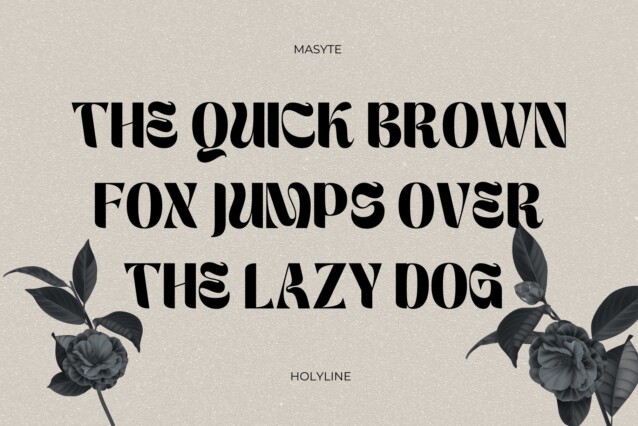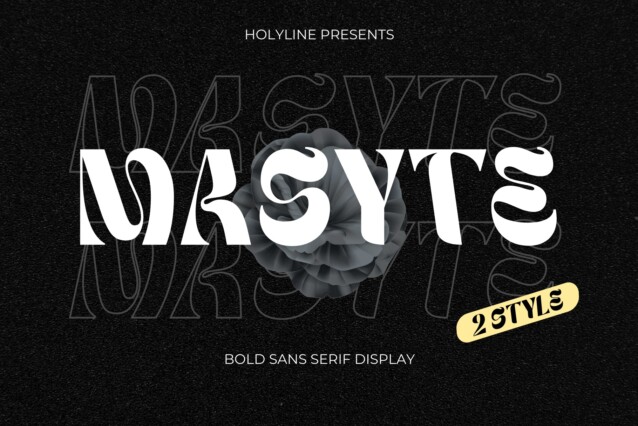
Masyte Font
Masyte Font is a captivating blackletter serif display font that seamlessly bridges the gap between tradition and modern design. It’s very bold and fun with a unique shape. Perfect for headline, custom logo, or anything for your creativity and MASYTE is perfect typeface if you want something new with your project. Happy creating!